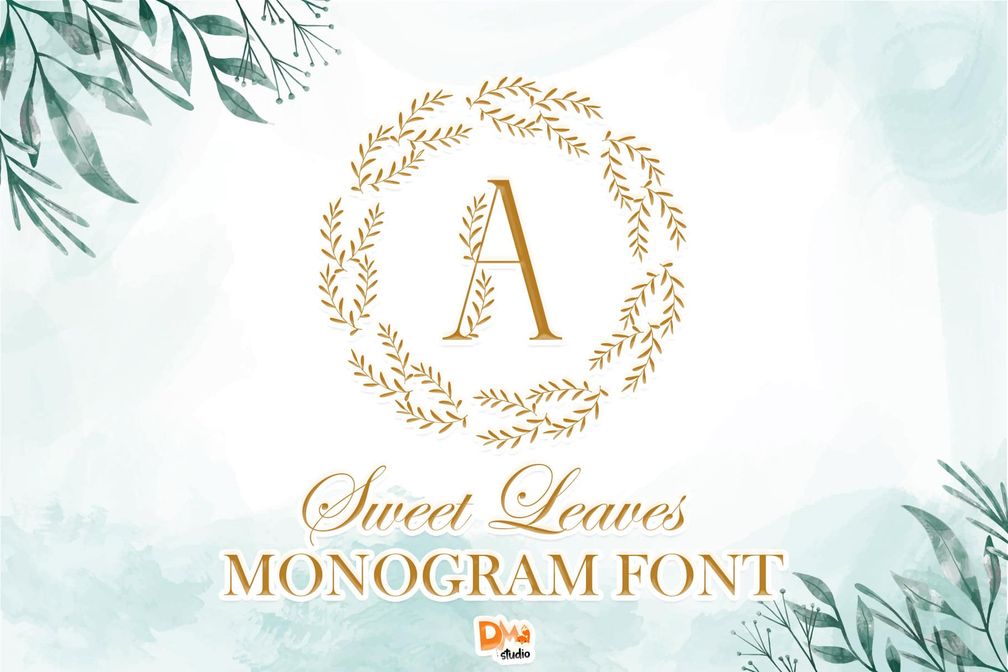
Sweet Leaves Monogram
Sweet Leaves Monogram – Elegant & Nature-Inspired Monogram Font
Sweet Leaves Monogram is a beautifully crafted typeface that blends elegance with nature-inspired design. Each letter is adorned with delicate leaf motifs, making it perfect for wedding invitations, botanical branding, personalized stationery, boutique packaging, and artistic projects. Its graceful and organic aesthetic adds a refined touch to any design.
✔ Nature-Inspired Leaf Design – Each letter is decorated with intricate leaf elements for a natural and elegant feel.
✔ Perfect for Elegant & Luxury Projects – Ideal for wedding stationery, logos, branding, and personalized gifts.
✔ Ornamental & Timeless Aesthetic – A harmonious balance of sophistication and organic beauty.